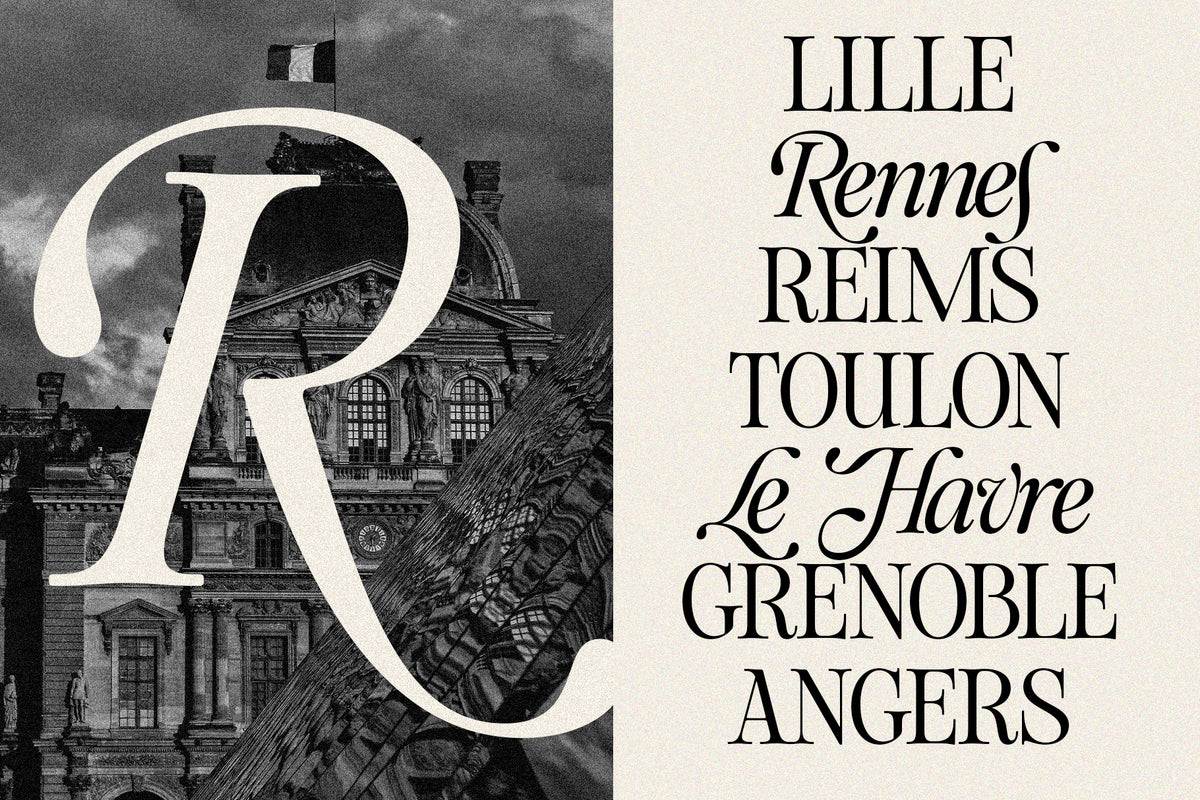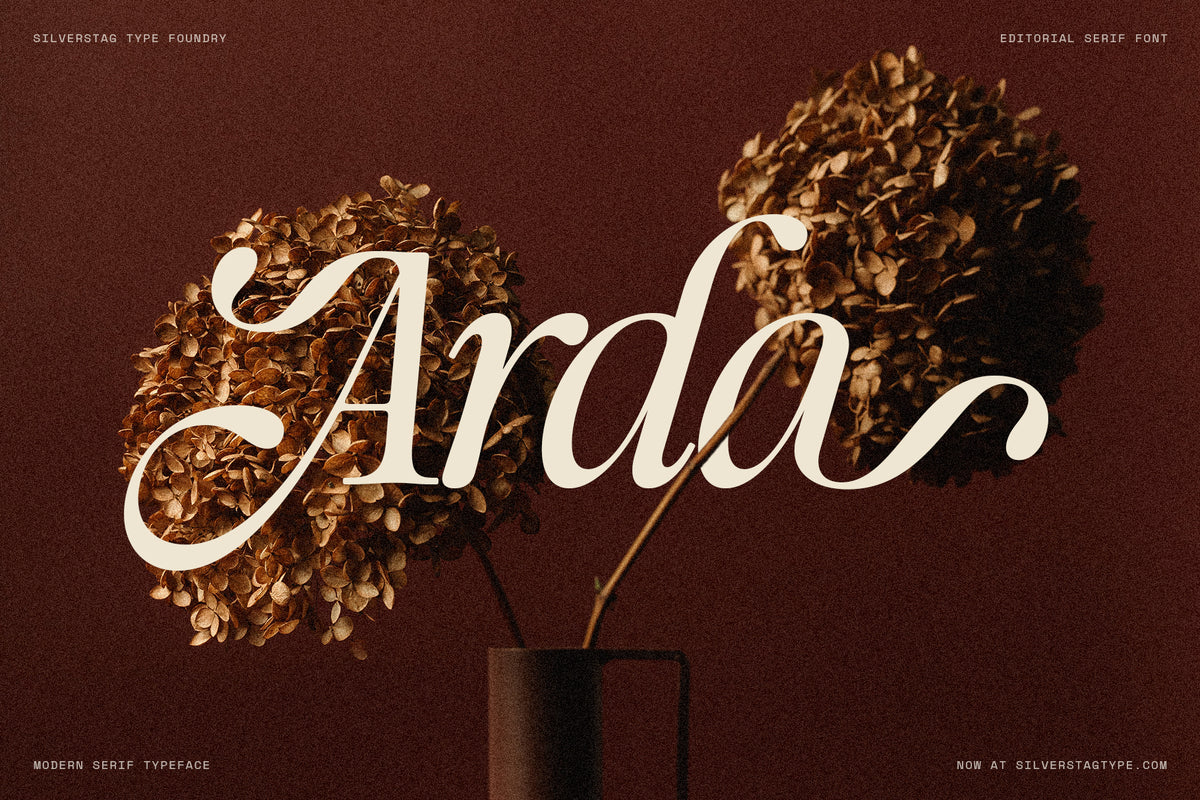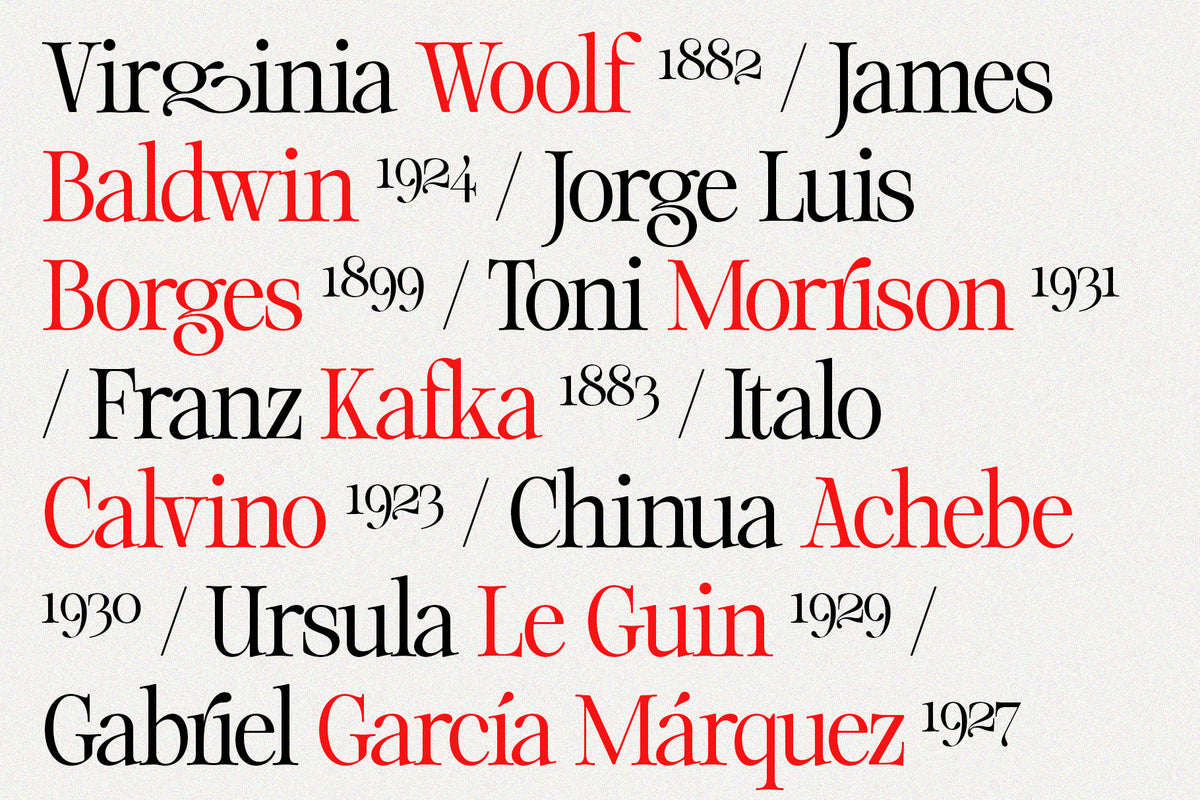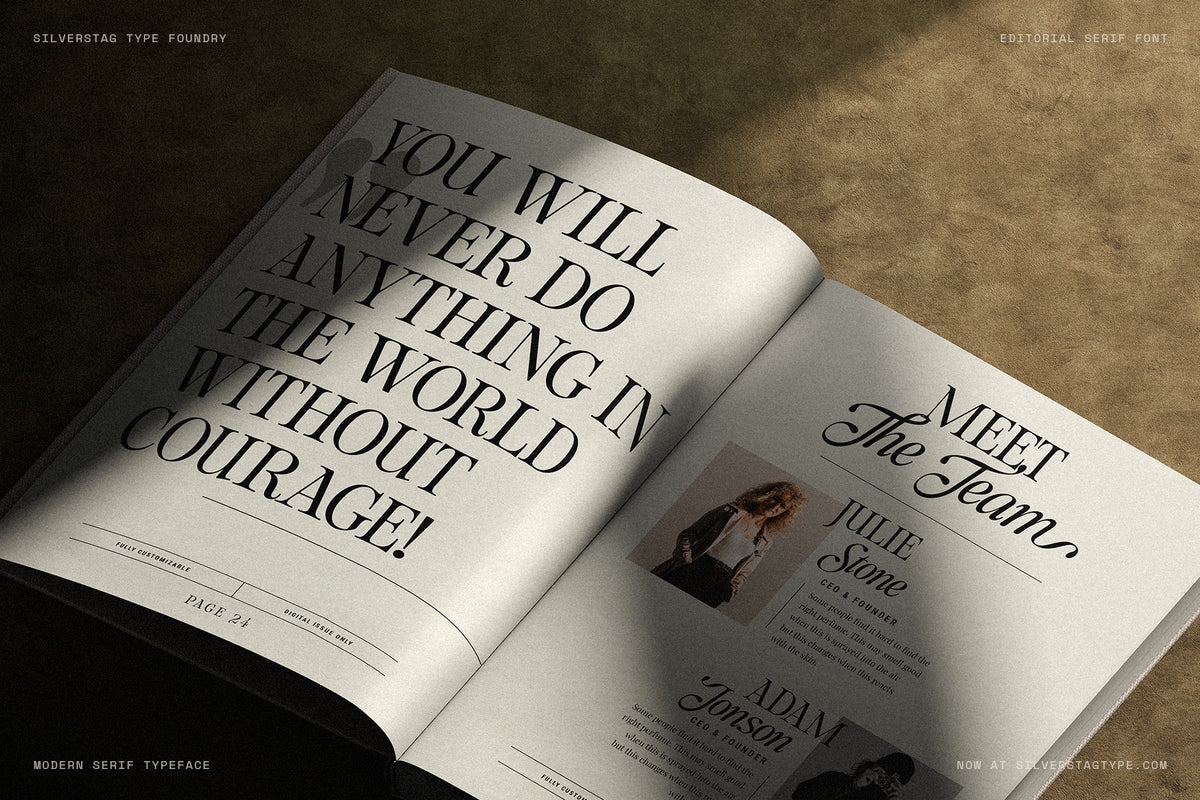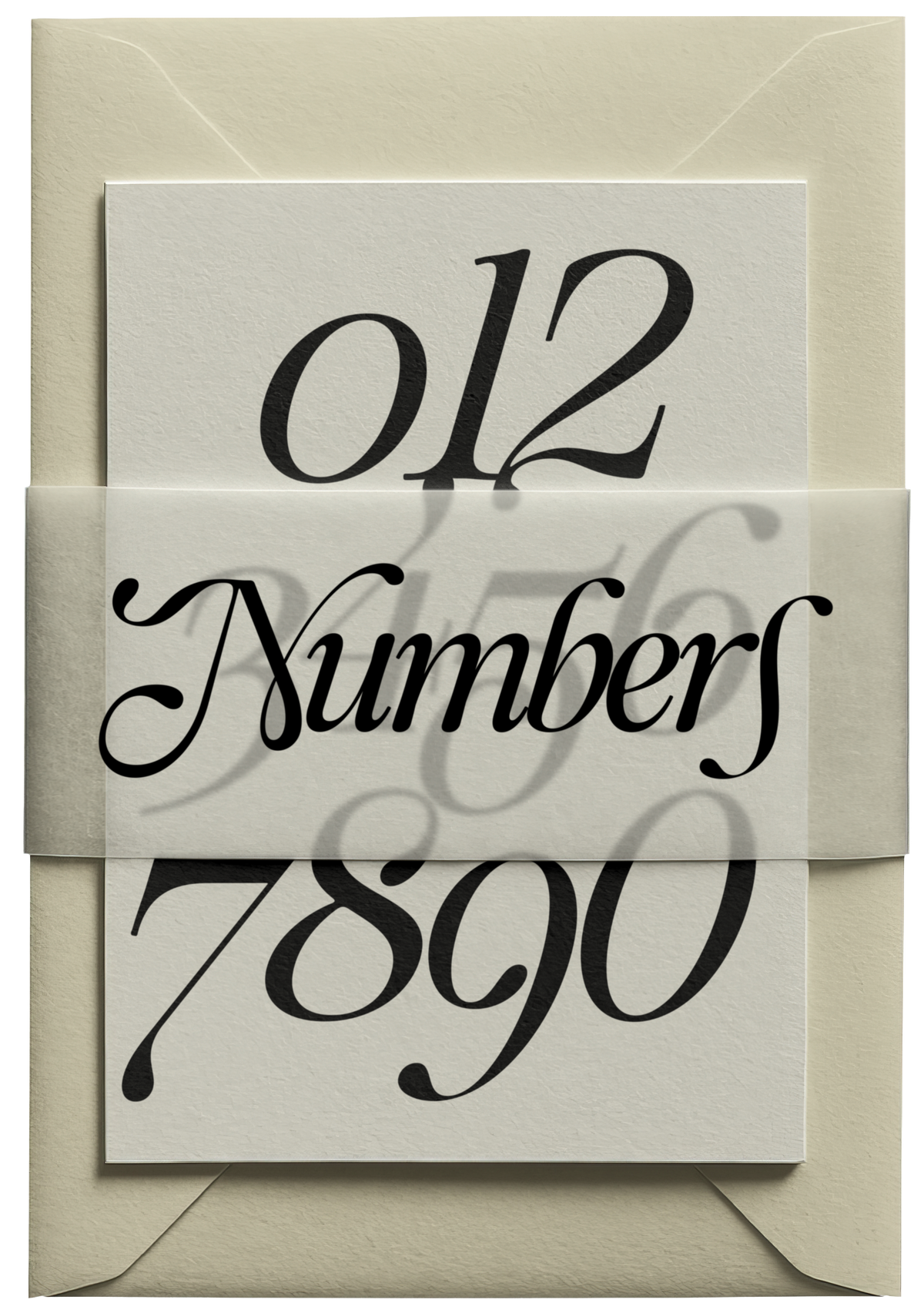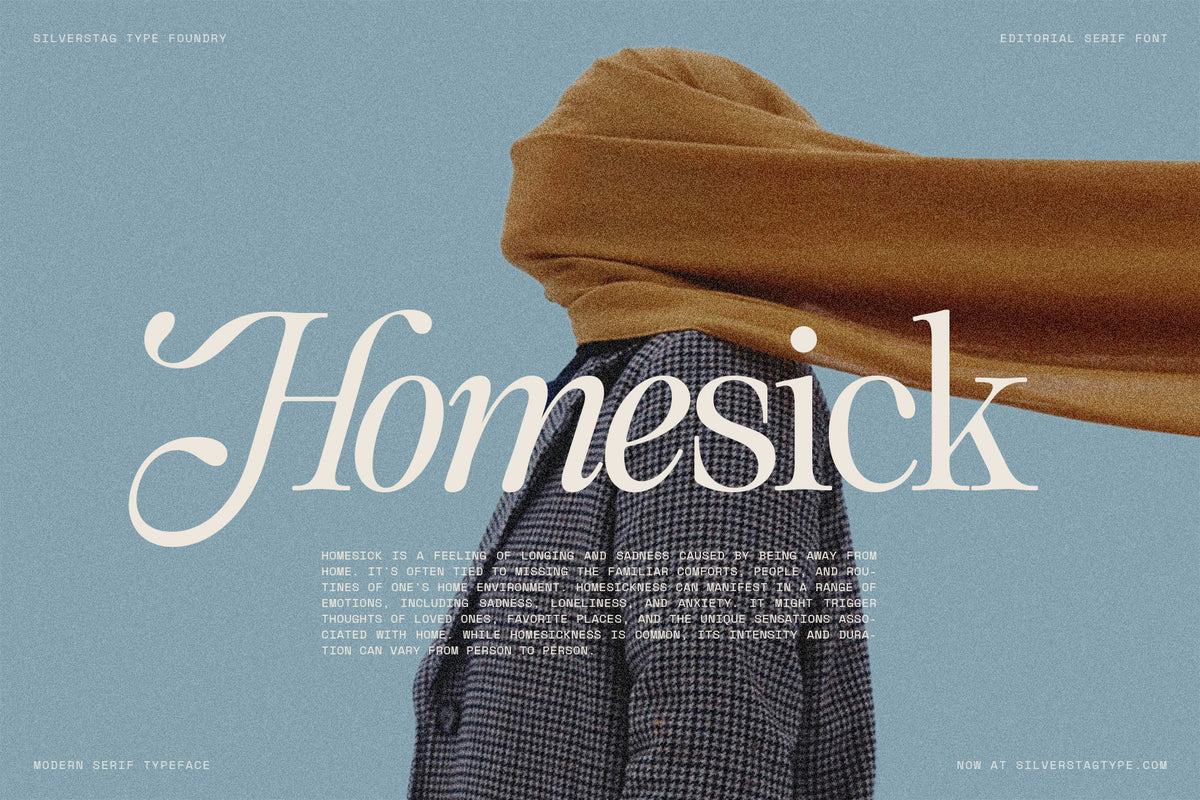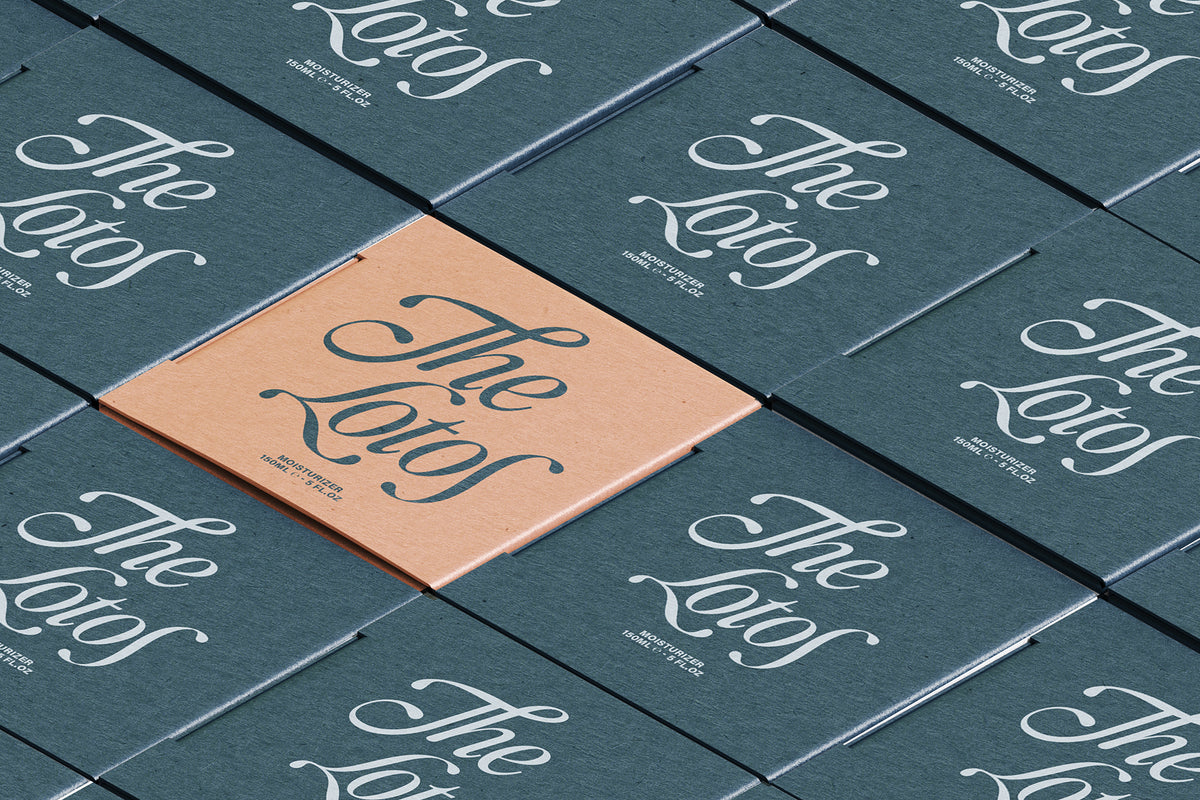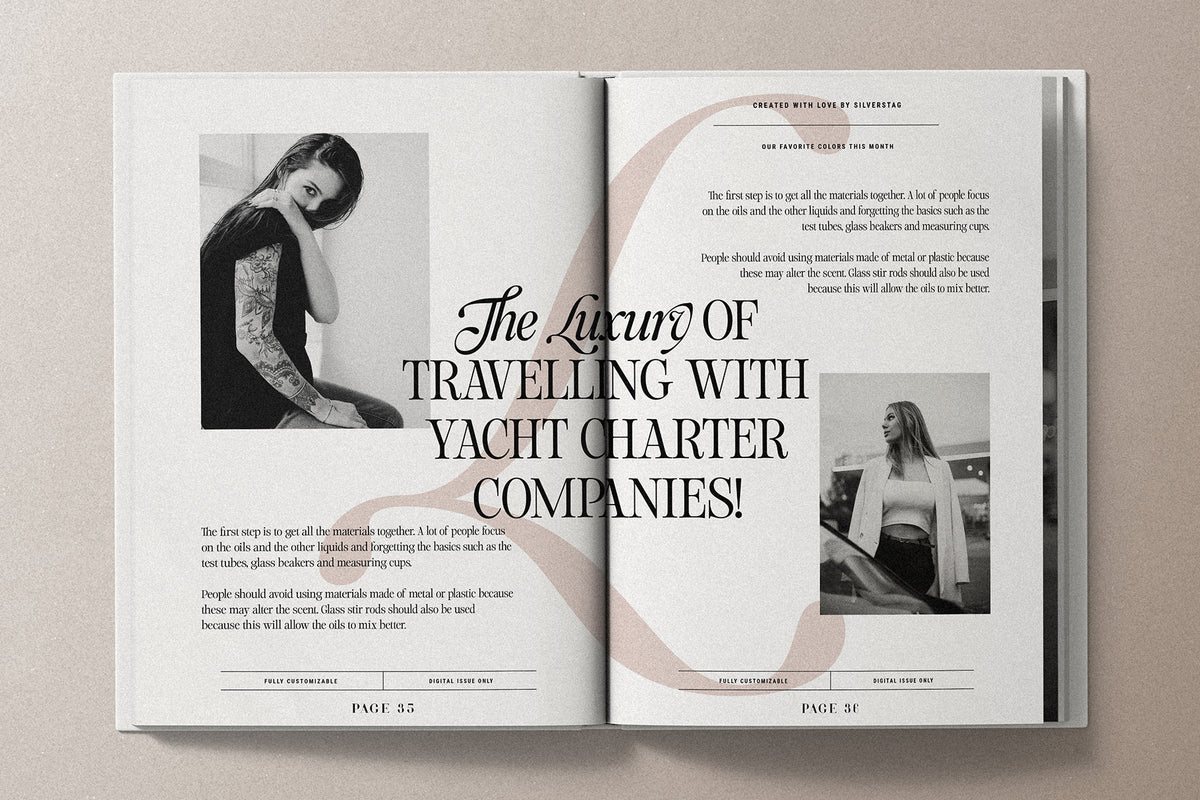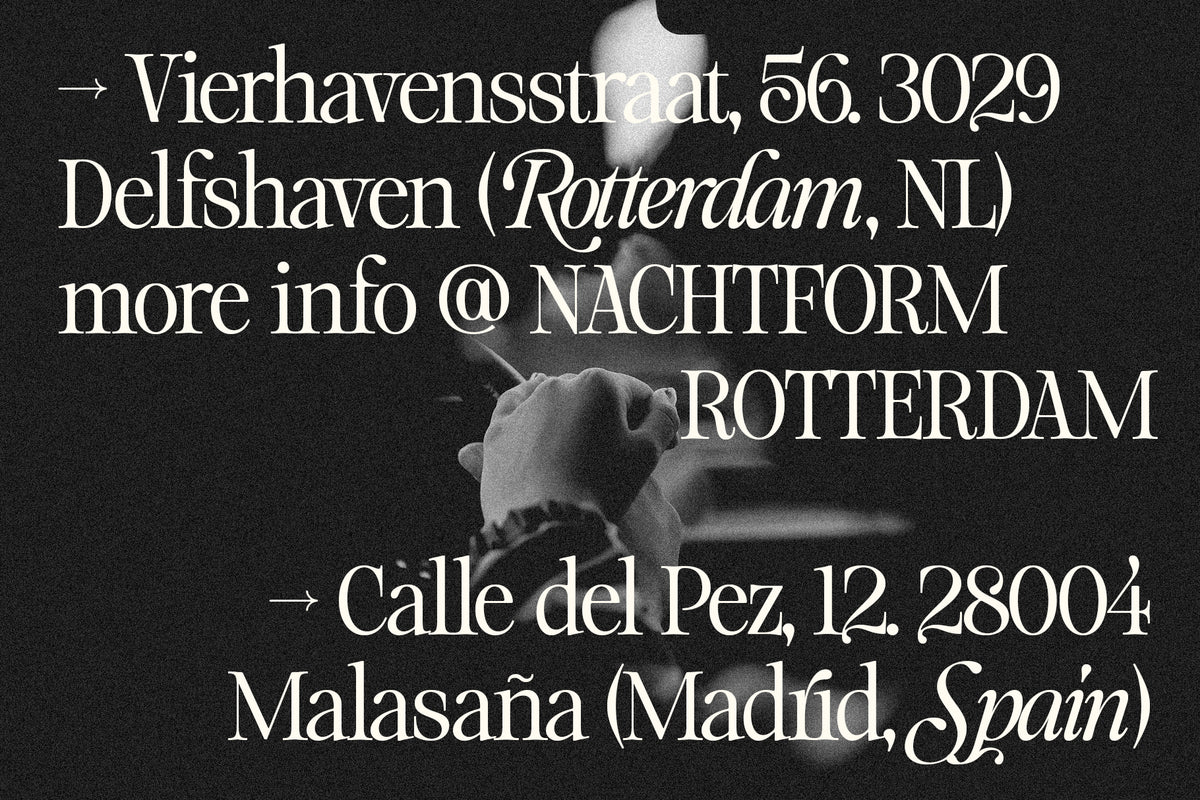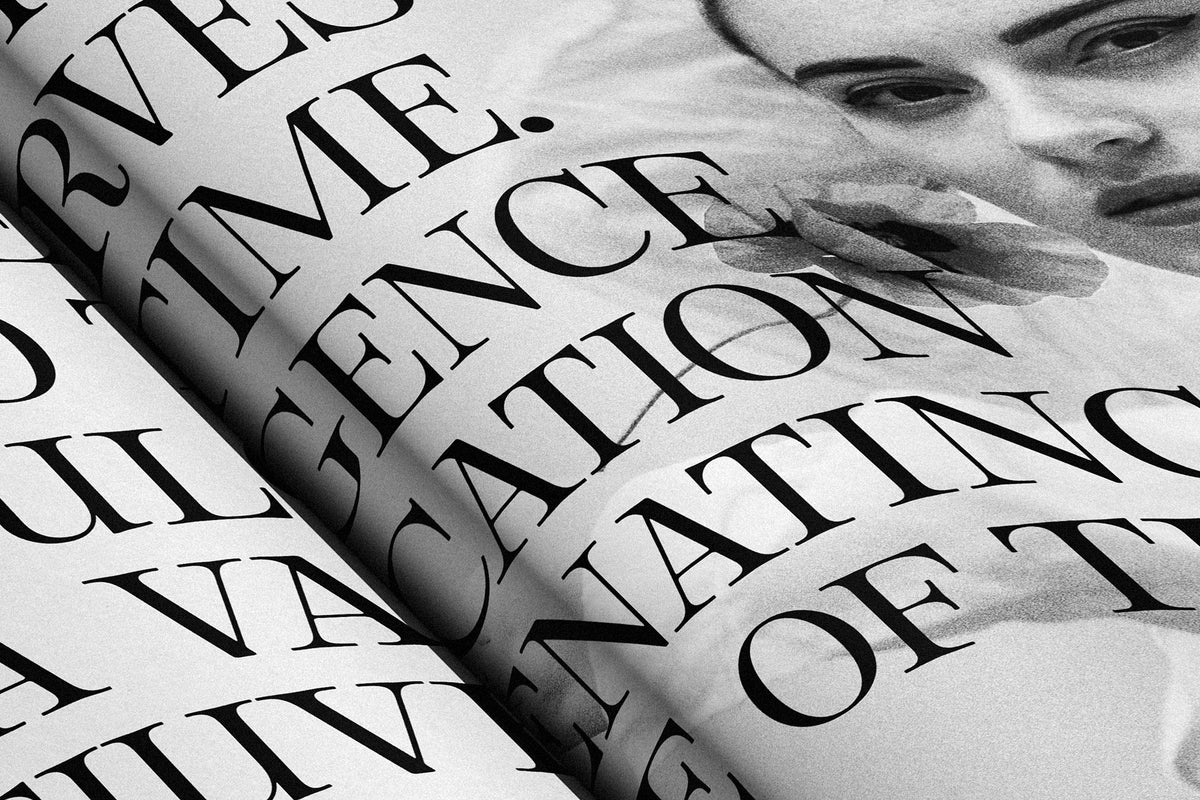
The Loneta Editorial is an editorial serif typeface in two styles: Regular and a true Italic. Both are drawn as one family, so they share the same proportions and work side by side on the page.
The Regular is a high-contrast serif with tall capitals that keep their shape in big headlines. The Italic is a true italic, drawn from scratch rather than slanted. It follows a calligraphic hand, so the letters loop and flow the way a pen would move. Put a word in italic next to a line of capitals and the two sit well together. That mix is what you see across the specimens: The Loneta in the Italic, EDITORIAL in the Regular.
Both styles come with plenty to play with. There are over 100 ligatures across the two fonts, from the everyday fi and ff to more decorative pairs in the Italic. The Italic also has a full set of swash capitals and five stylistic sets with alternate forms for letters like b, d, h, k and R. You get lining and oldstyle figures, tabular figures, fractions, superscripts and subscripts, so numbers look as good as the letters.
Use it for magazine covers and spreads, book covers, packaging, beauty and fashion brands, stationery and logos. It is at its best at larger sizes, where the contrast and the italic details have room to show.
FEATURES
- 2 styles: Regular and Italic
- 100+ ligatures (standard and discretionary)
- Full set of swash capitals in the Italic
- Stylistic sets with alternate letterforms
- Lining, oldstyle and tabular figures
- Fractions, superscripts and subscripts
- Extended Latin language support, including Vietnamese
- Kerned and ready for print and screen
Can I use it for body text?
The Loneta Editorial is designed for headlines, titles and display work. For long paragraphs, pair it with a text serif or a clean sans.
Which languages does it support?
It covers extended Latin, including most Western and Central European languages and Vietnamese. It does not include Cyrillic or Greek.